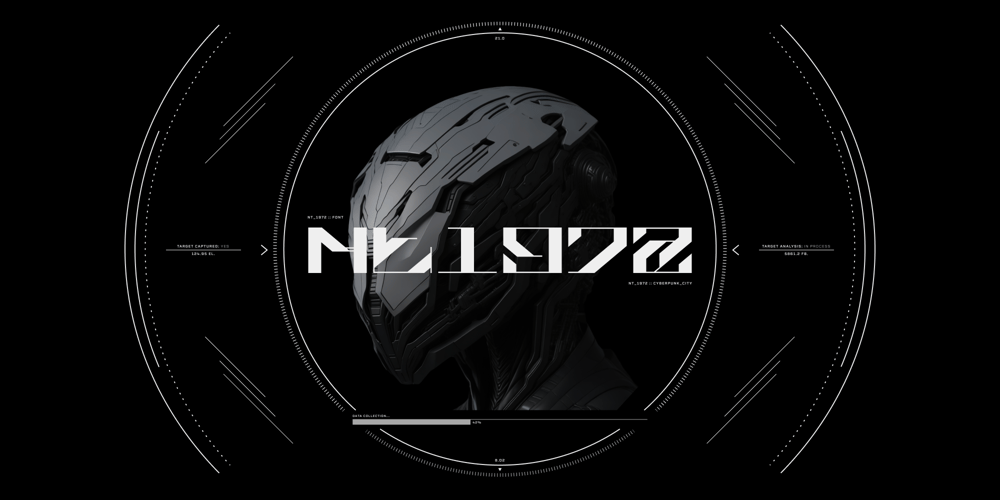
Nt1972
Nt1972 font
Nt1972 Font Family was designed by Eugene Bunin and published by Harvester Type. Nt1972 contains 1 styles and family package options. NT1972 is a display font from the future. Font in the era of cyborgs and cyberpunk. This is a sharp, brutal font with futuristic shapes. It combines style and functionality, so the font will look great in your futuristic design in any environment, be it a logo or a merchandize.The angle of inclination in each glyph is 50 degrees, all glyphs also have the same stem sizes to create a good font system. All this is done to get a good futuristic cyberpunk font that will give style to your design, be it a logo, poster, banner, merchandize, title, packaging or product design. In addition to all this, there is support for many languages and alternative characters.In case of any questions, problems or suggestions, please email: bunineugene@gmail.com